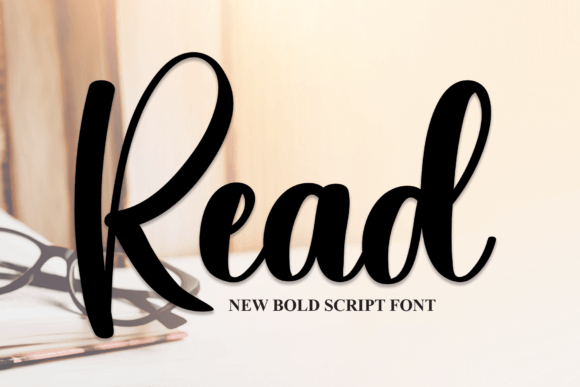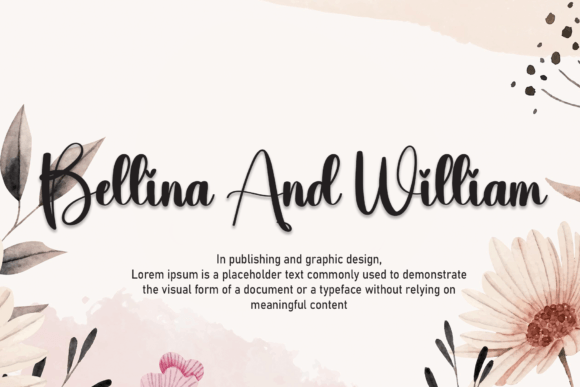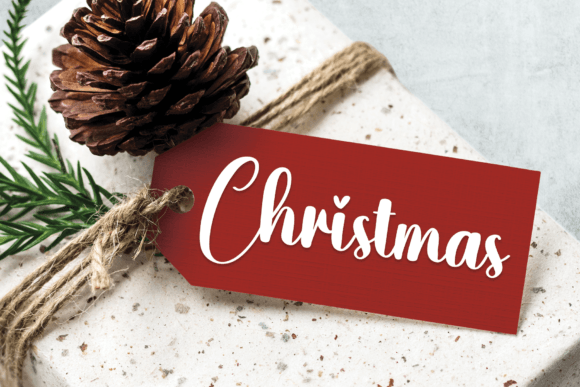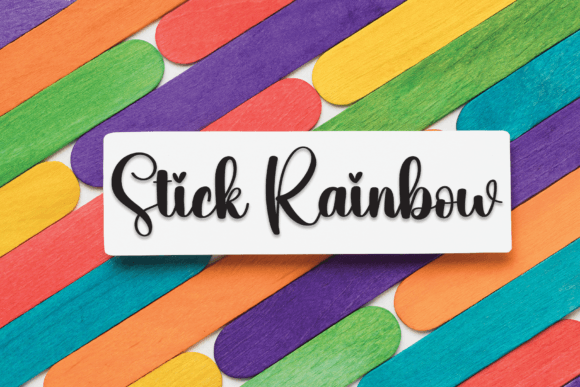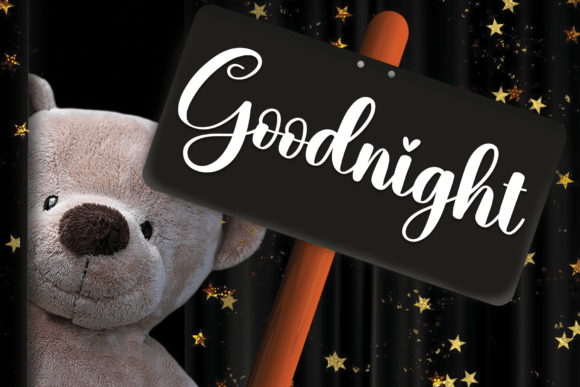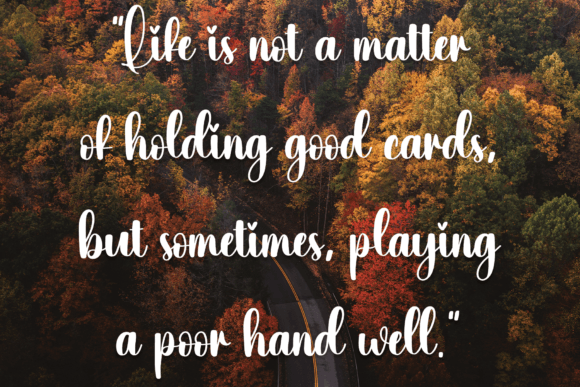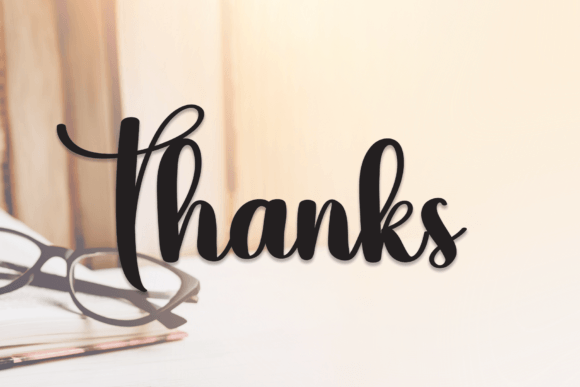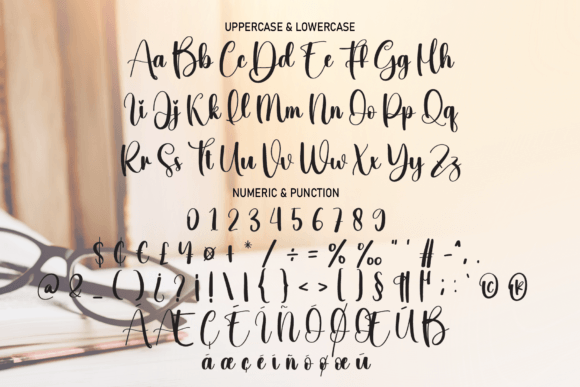
Read Font
About Read Font
Read Font is a modern handwritten typeface that offers both elegance and flexibility for a wide range of creative projects. With its natural, flowing strokes and clean design, this font brings a personal yet polished touch to everything from wall art to branding. It’s the perfect blend of style and usability, making it a favorite among designers seeking a fresh handwritten look.
Thanks to its contemporary appearance and graceful lettering, Read Font can instantly enhance any layout. Whether you need something warm and inviting or clean and trendy, this adapts easily while keeping your work engaging.
Where to Use Read Font
With its lightweight and smooth aesthetic, Read Font works beautifully across numerous mediums and design needs. It’s especially well-suited for:
• Wedding invitations and event stationery
• Wall art and quote prints
• Logos and branding kits
• Social media posts and profile images
• Product packaging and labels
• Advertisements and banners
• Photography watermarks
• Greeting cards, journals, and planners
Wherever you need a feel, ReadFont adds a stylish, approachable tone.
Why Designers Love ReadFont
ReadFont combines stylish form with practical use. It comes with a complete set of uppercase and lowercase characters, numerals, and multilingual support. Its spacing and flow ensure legibility across screens and print materials.
Moreover, ReadFont’s contemporary script style captures the charm of handwriting while the structure required for professional projects. It enhances the look of your designs without overpowering the content.
If you’re looking for a versatile, modern handwritten font to elevate your design work, ReadFont is an excellent choice. Whether you’re event invites, building brand assets, or designing product labels, this font brings personality and polish to your creations.